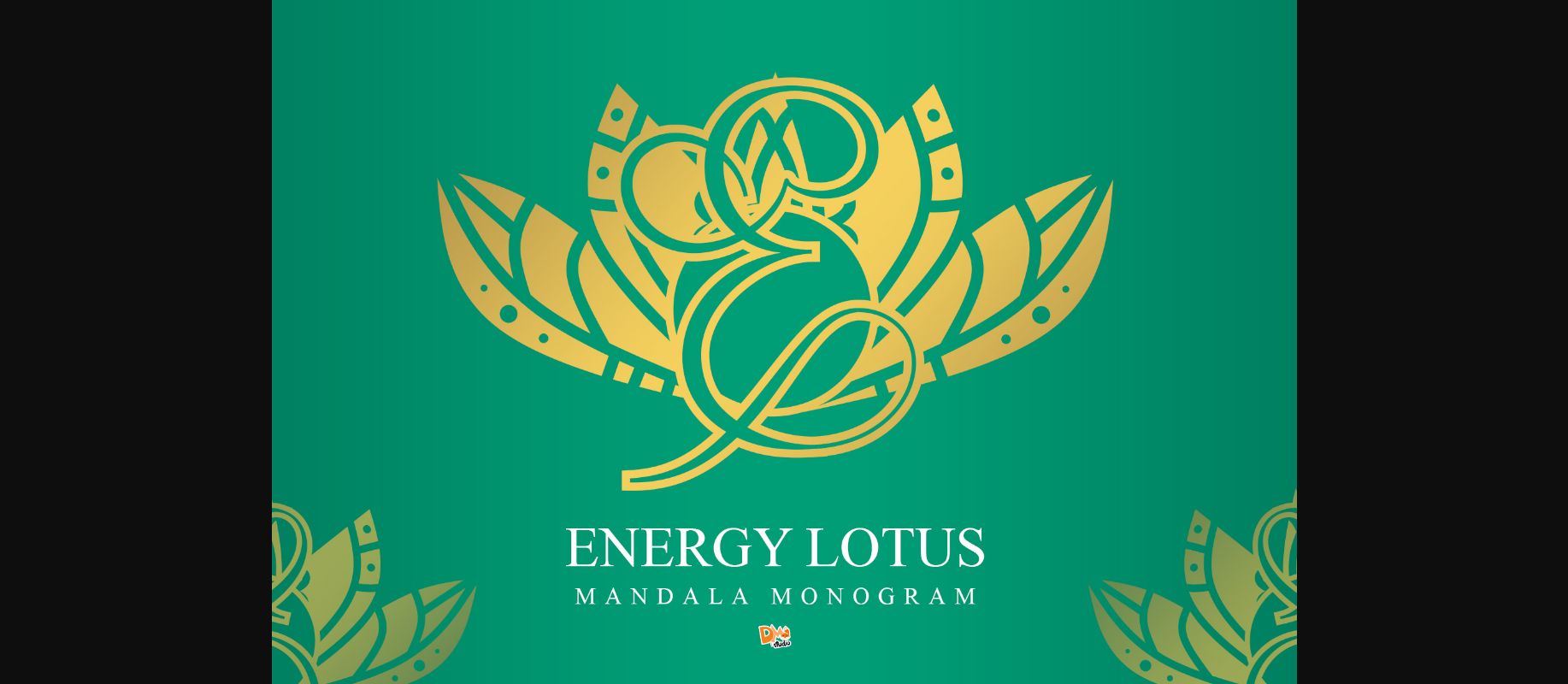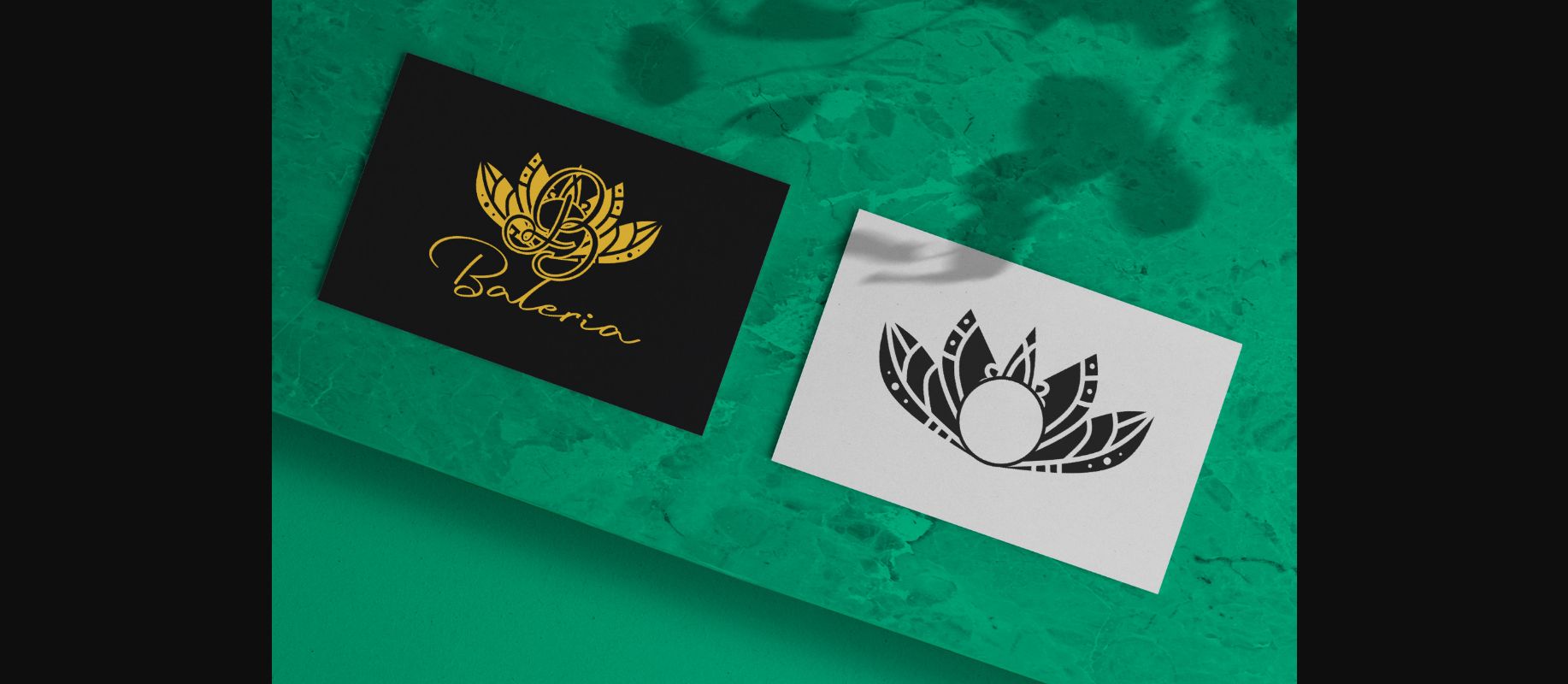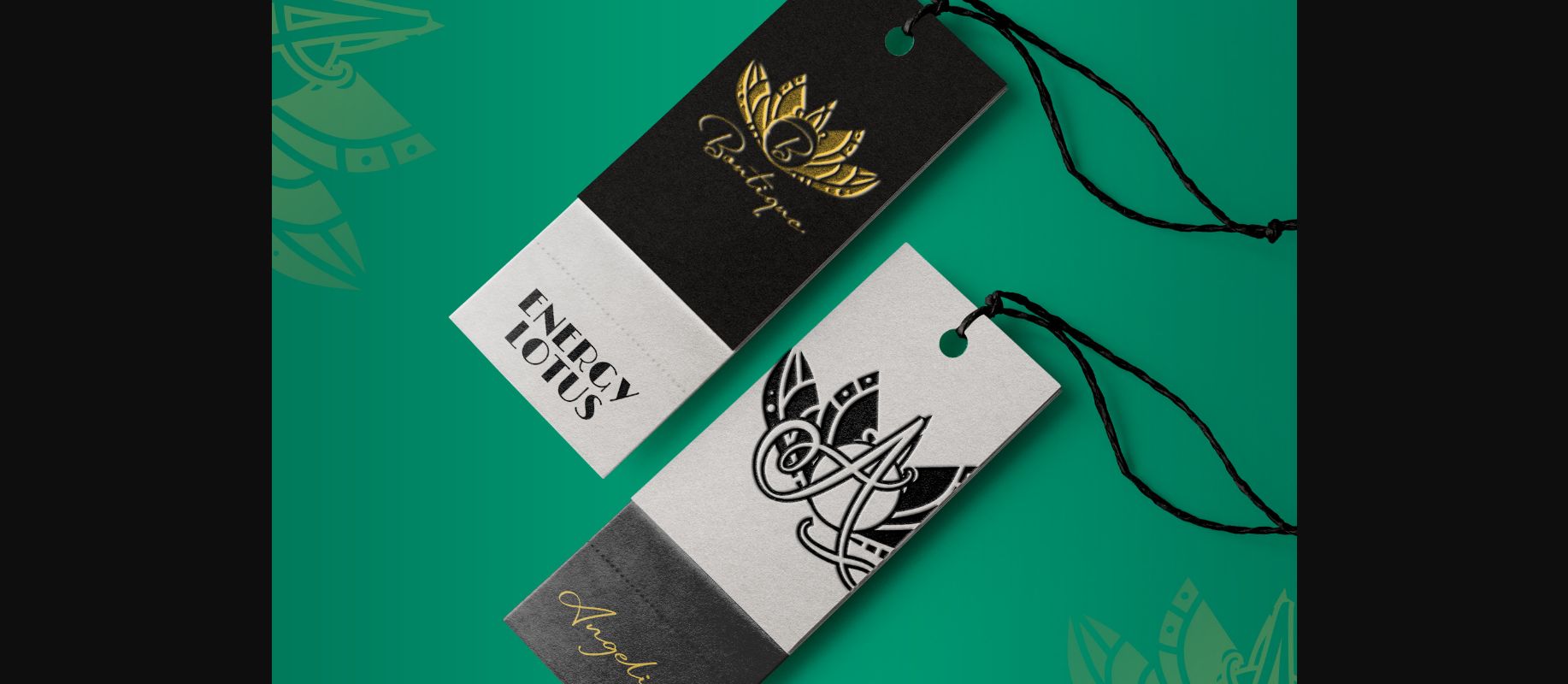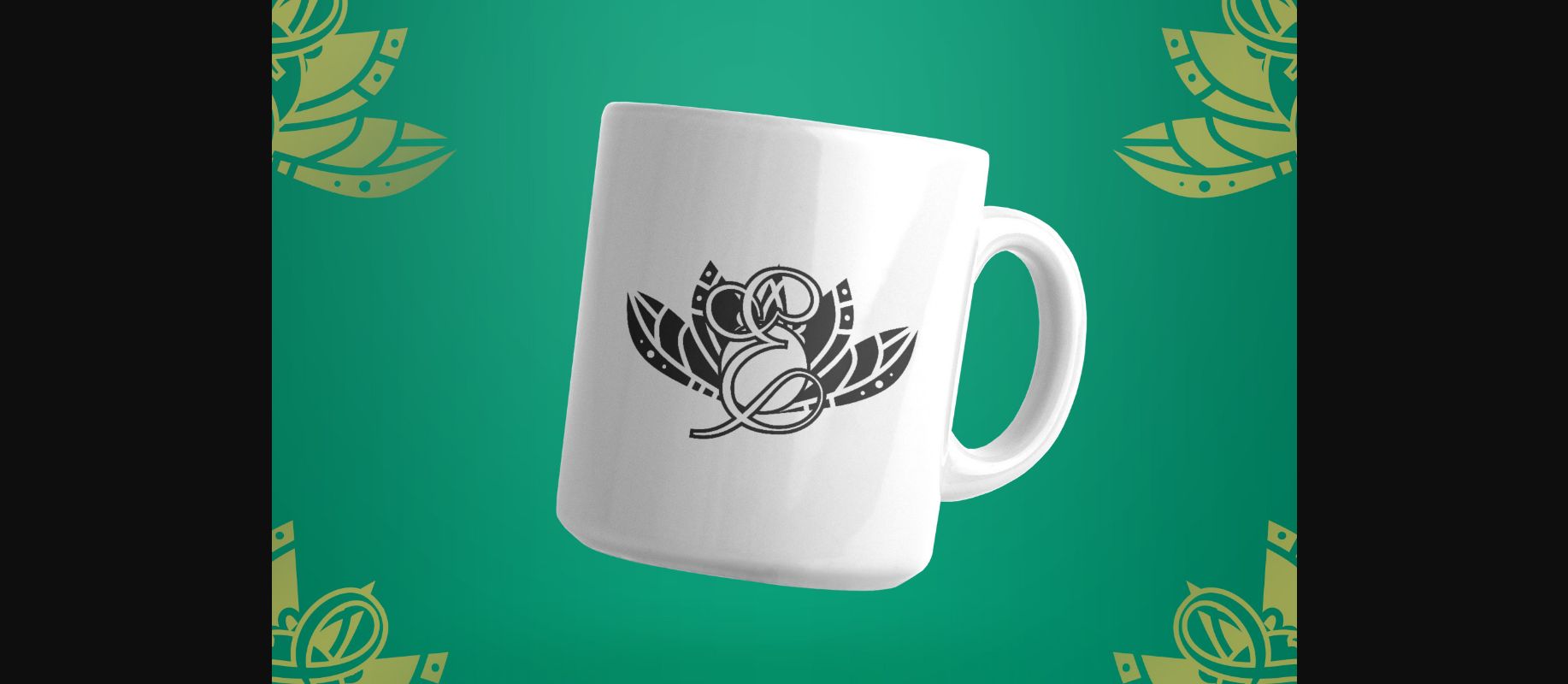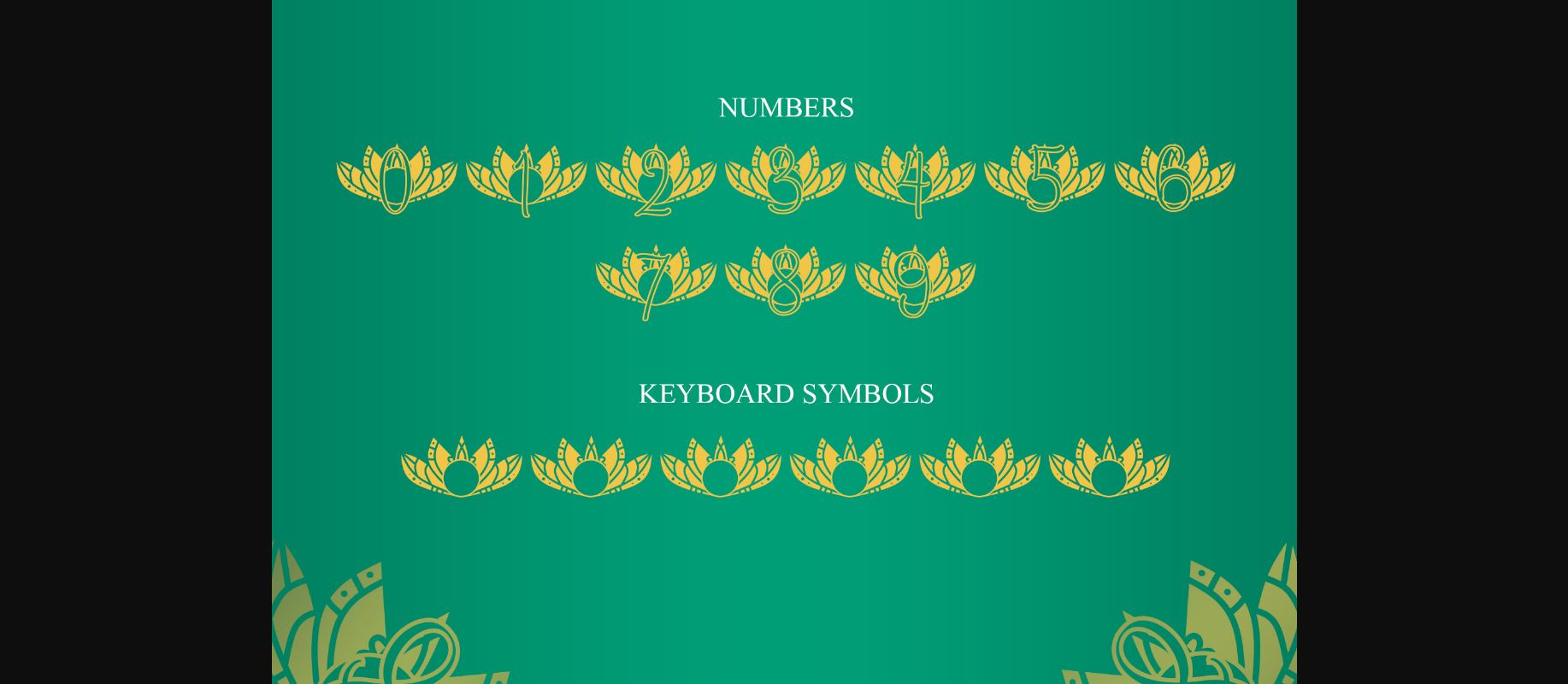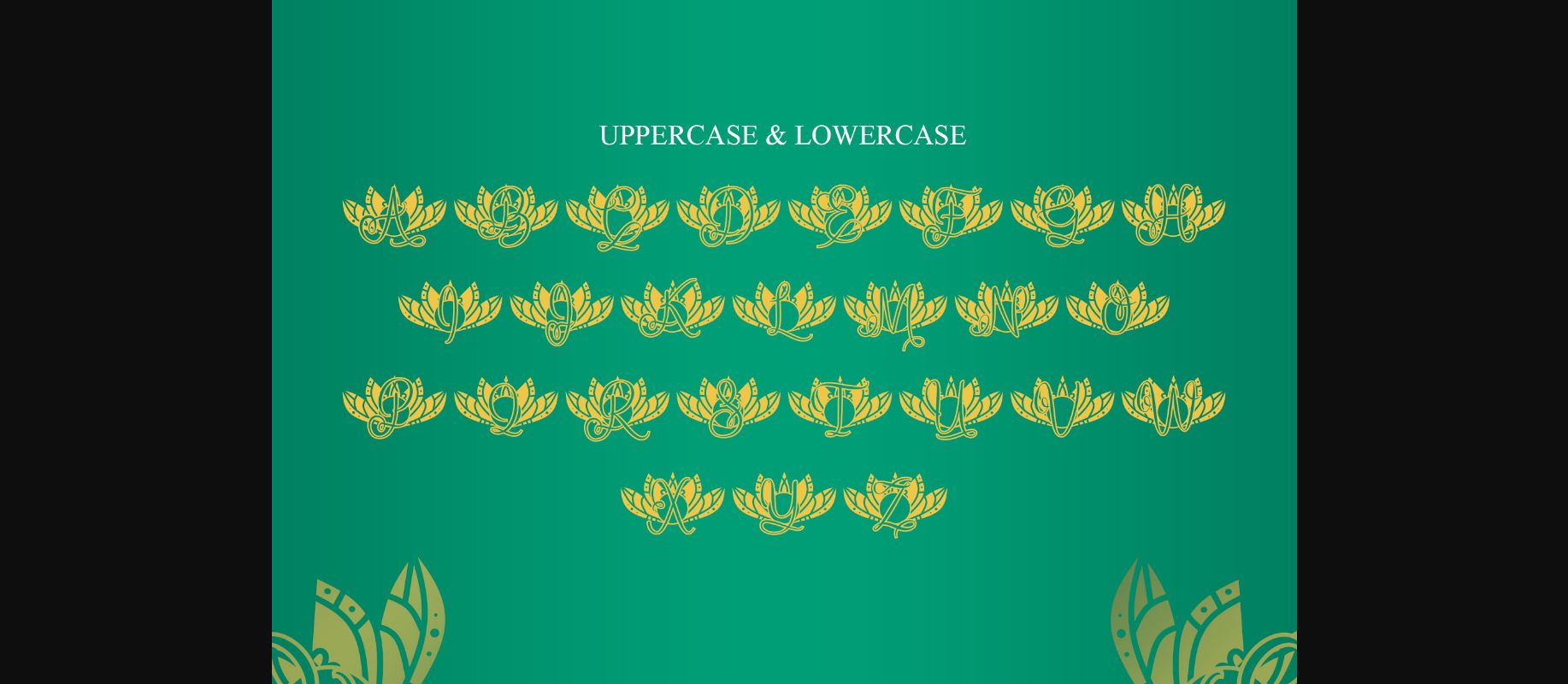
Energy Lotus Mandala Monogram Font
About Energy Lotus Mandala Monogram Font
Energy Lotus Mandala Monogram is an elegant and unique decorative font inspired by the elegance of mandala art. Use it for your craft, logo, or anything in your collection.